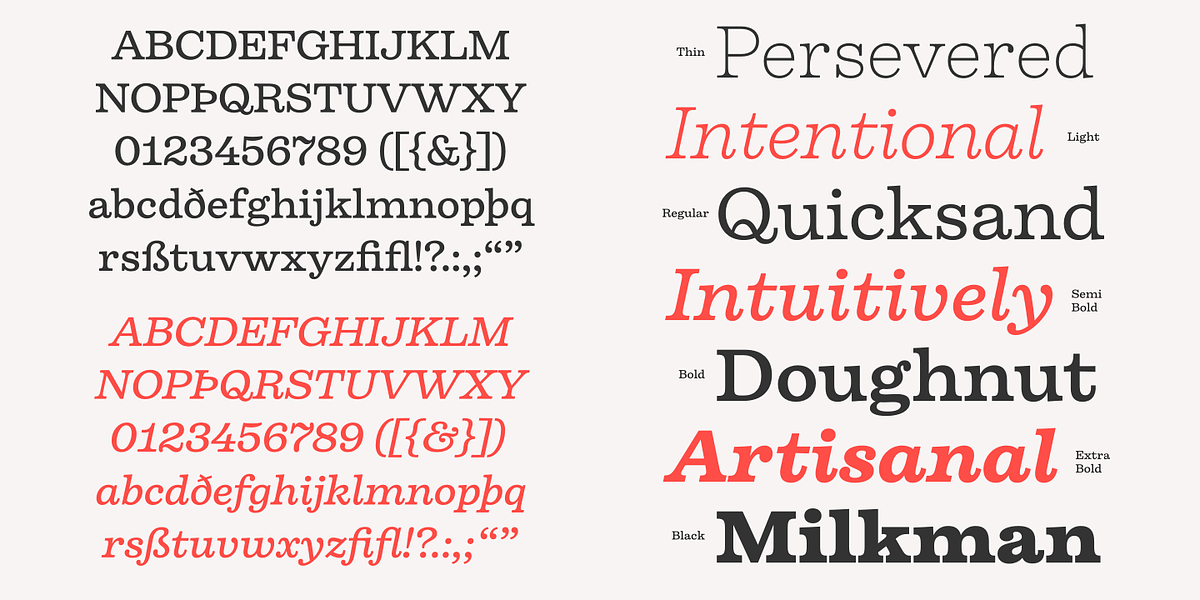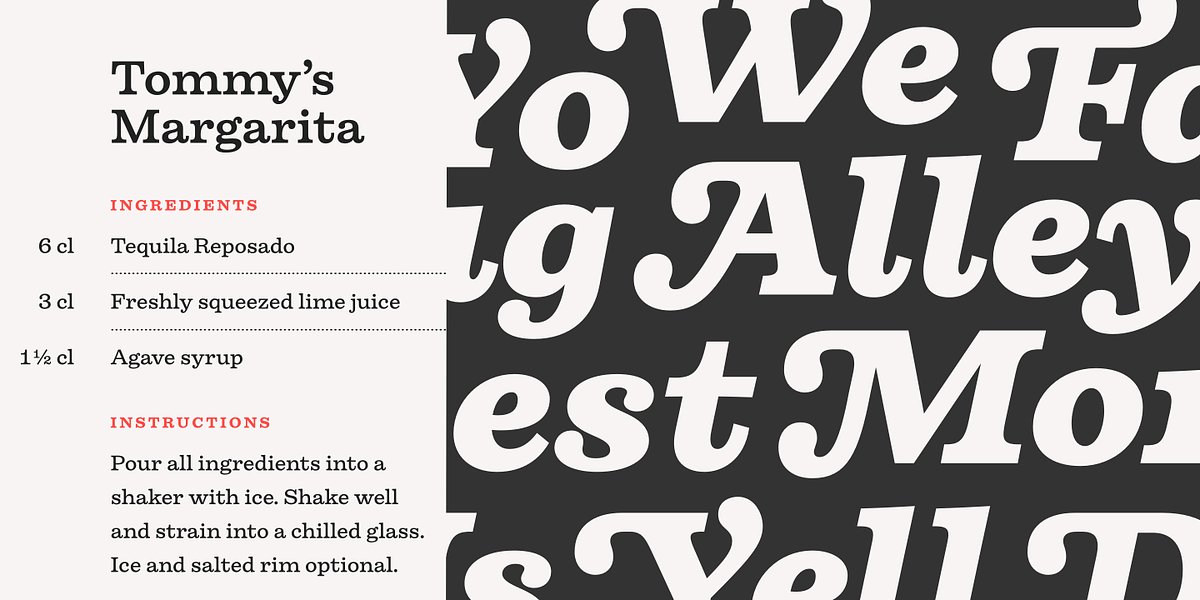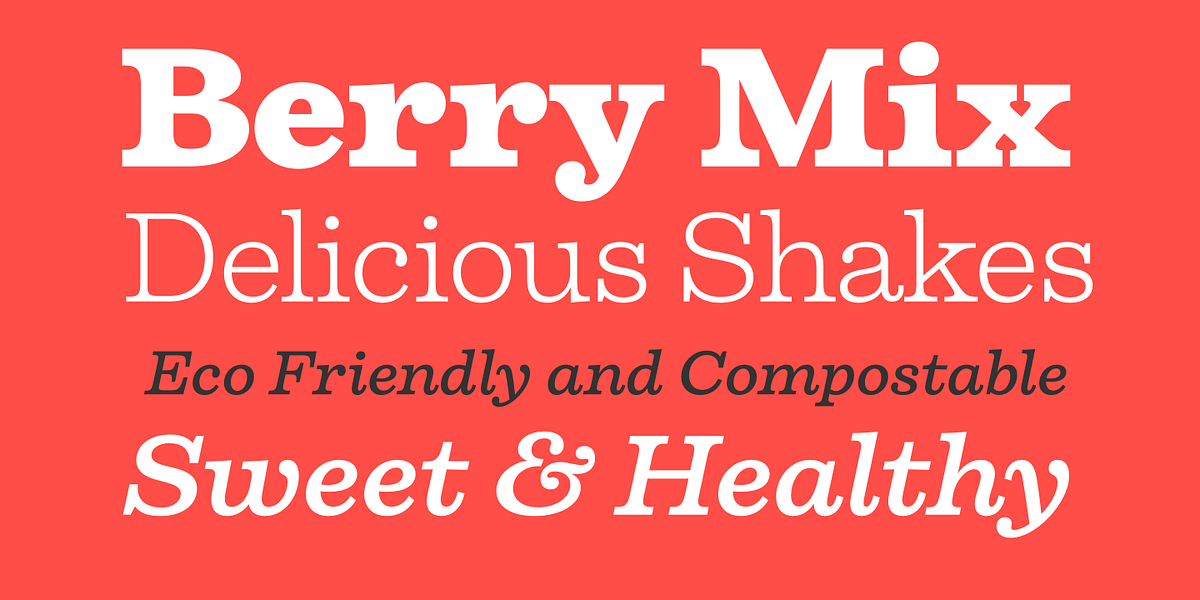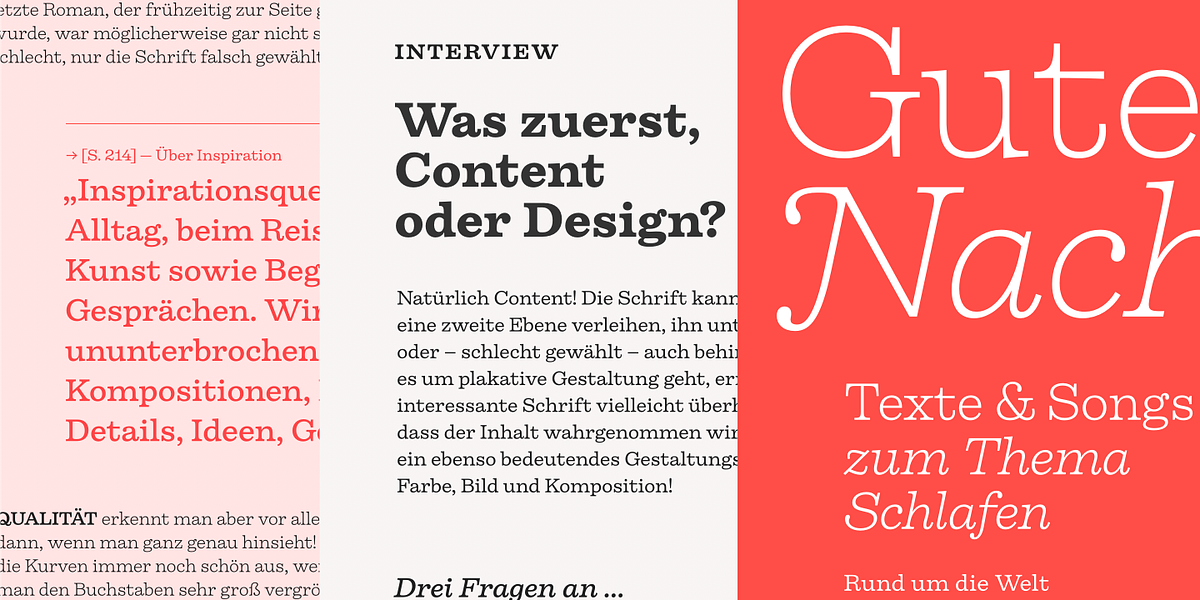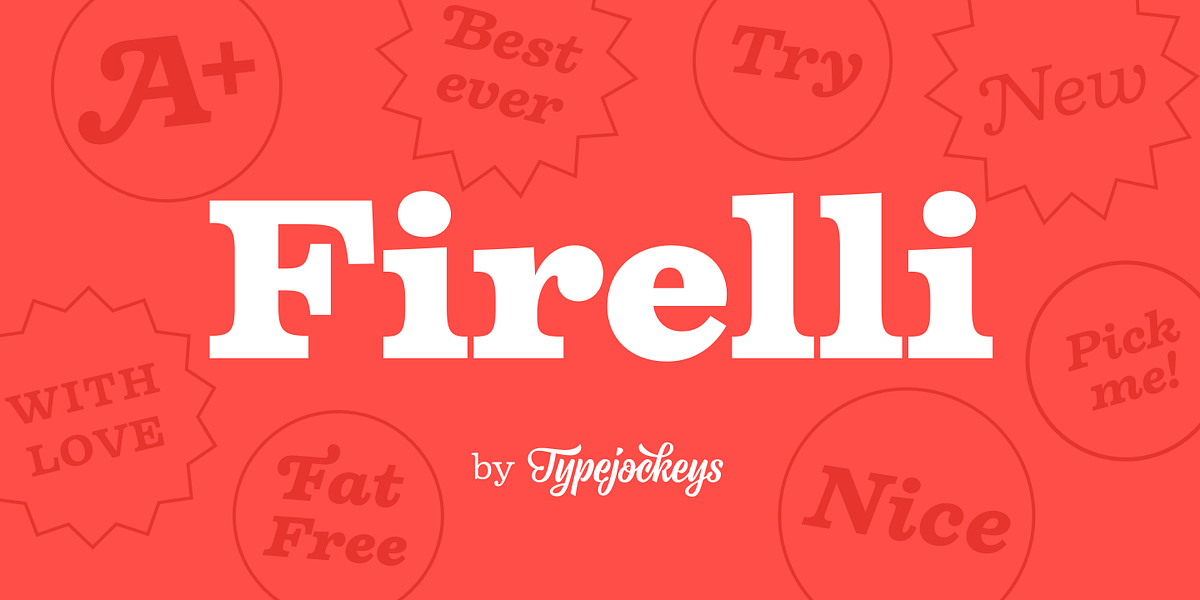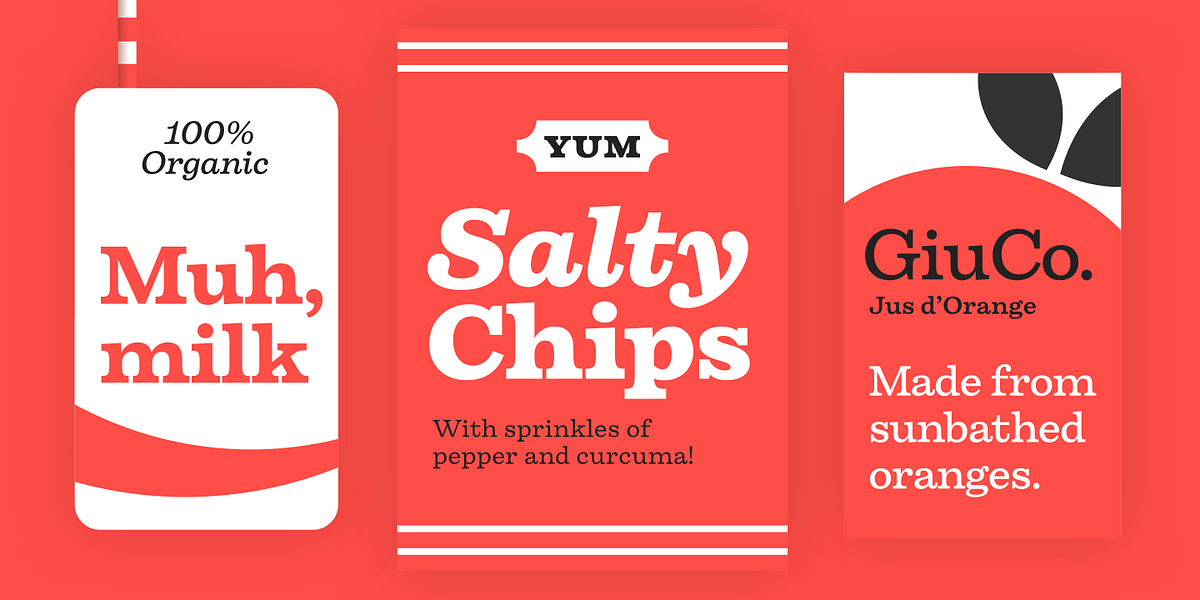
Firelli
Firelli is a retro-inspired serif font designed by Teddy Derkert. It features flared serifs and ball terminals, giving it a distinctive and playful personality. Available in 14 styles, including 7 weights and italics, Firelli is versatile enough for both headlines and longer texts. Its solid posture and wide range of weights make it suitable for various applications such as magazines, annual reports, branding materials, and even creative projects like bedtime stories.